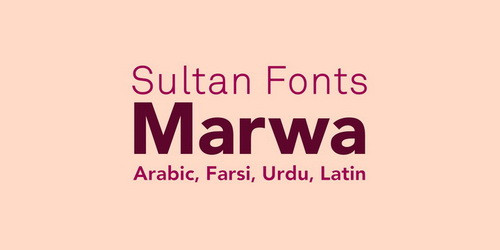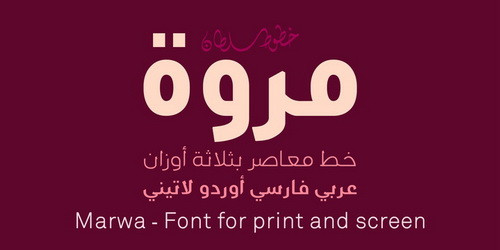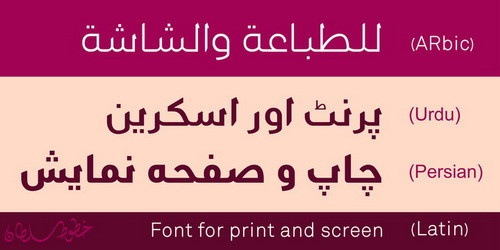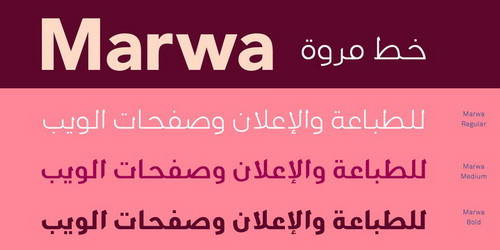
SF Marwa Font Family
SF Marwa was designed by Sultan Maqtari and published by Sultan Fonts. SF Marwa contains 3 styles and family package options.  Marwa is An Arabic typeface for Print And screen. This font family is from Kufi style and contains 3 weights: Regular, Medium and bold. Marwa is simple and a little detailed font and its three weights are fully harmonized, one letter with one length on the line, and words with a uniform length on the line, gives a comfortable reading look.